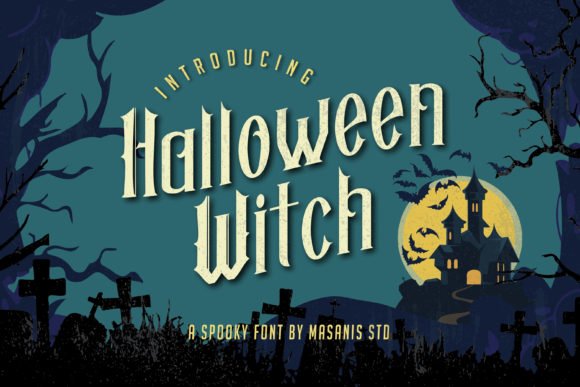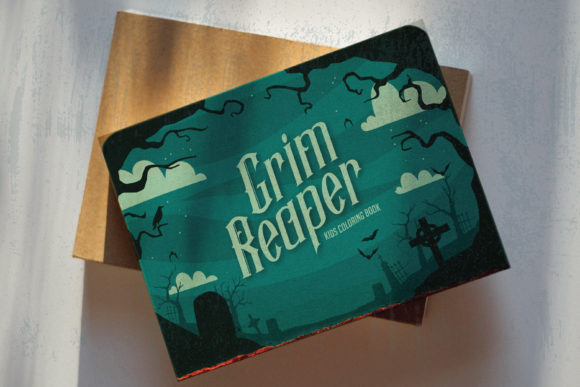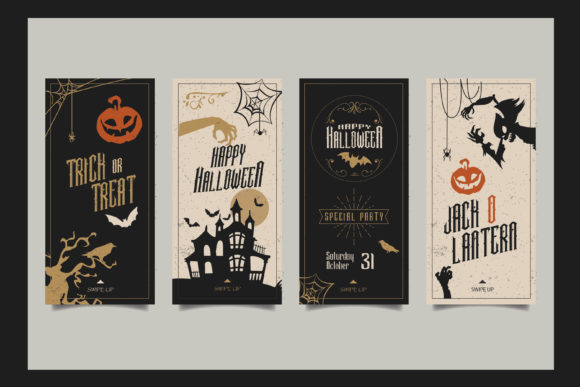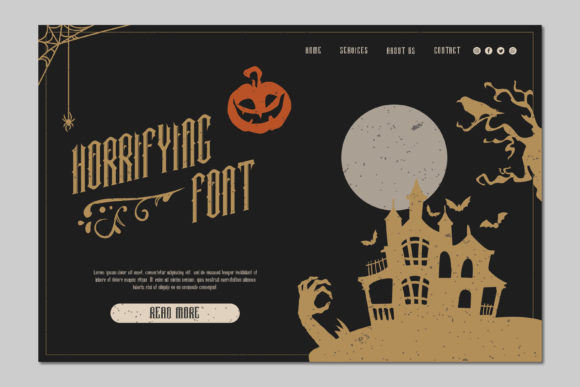
Halloween Witch Font
About the Halloween Witch Font
The Halloween Witch Font is here to transform your projects with its distinctive character and style. Halloween Witch is a vintage and spooky display font. Add this dramatic font to your favorite designs and notice how it makes them stand out!
This font’s dramatic, vintage style is ideal for headlines, posters, and Halloween-themed branding projects. It excels in creating a spooky yet elegant atmosphere, perfect for invitations, logos, or packaging for related products. However, its ornate nature makes it unsuitable for body text or UI elements where readability is paramount. Small sizes will lose detail and impact.
Halloween Witch pairs well with clean sans-serif fonts like Helvetica or Open Sans for a striking contrast, balancing its ornate forms with modern simplicity. For a more cohesive vintage feel, consider pairing it with a classic serif like Garamond or Didot. A playful script font could add a whimsical touch to designs where a slightly less serious tone is desired.
The overall personality of Halloween Witch is bold, dramatic, and slightly mischievous; its vintage styling evokes a sense of classic horror aesthetics. It’s best suited for projects needing a strong visual presence and a touch of spooky elegance.
Halloween Witch Font Usage Examples
Halloween Witch Font Example